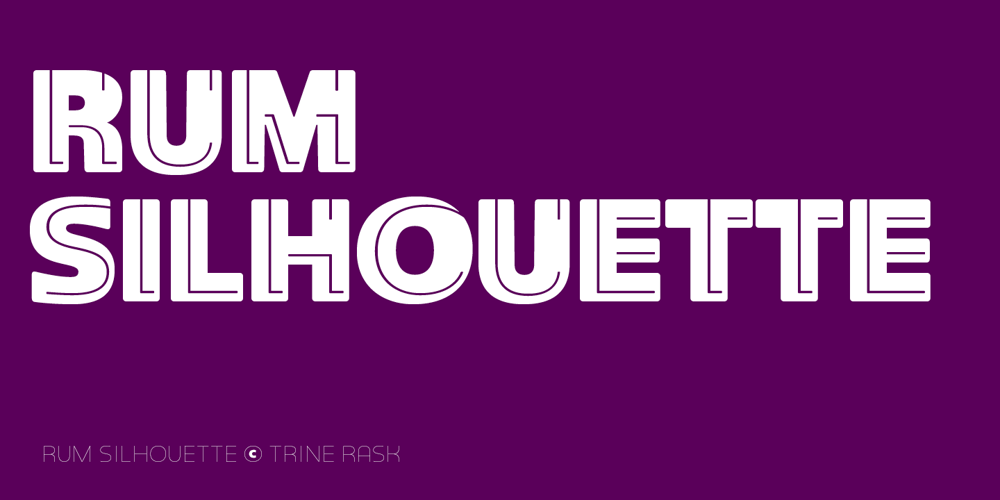
Rum Silhouette Font Family was designed by Trine Rask and published by Trine Rask. Rum Silhouette contains 1 styles and family package options. Rum Silhouette is developed as a display face within the type family »Rum«Rum Silhouette is a decorative all caps font, with uppercase letters based on Rum Soft Sans Black and a thin companion has replaced lowercase letters. It is suitable for posters and editorial design in large sizes.Includes two sets of numbers & punctuation marks that are in betweens.The complete family consists of Sans Serif & Serif in both sharp and soft version + the display fonts Rum Plakat & Rum Silhouette.